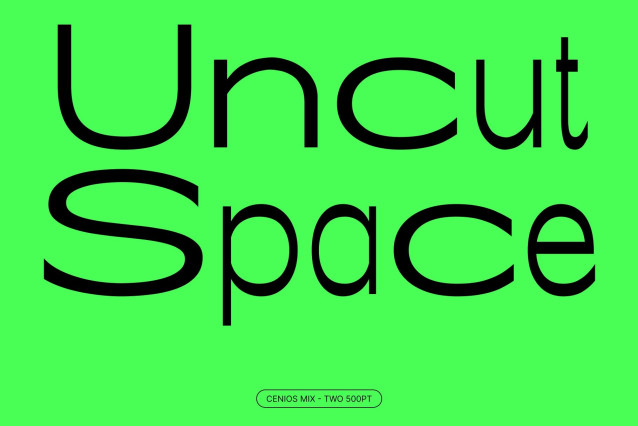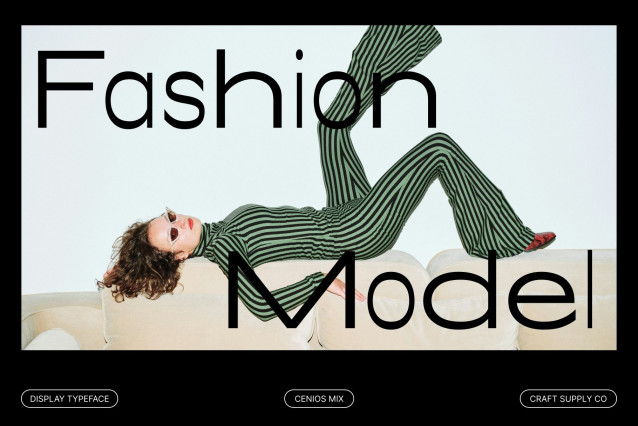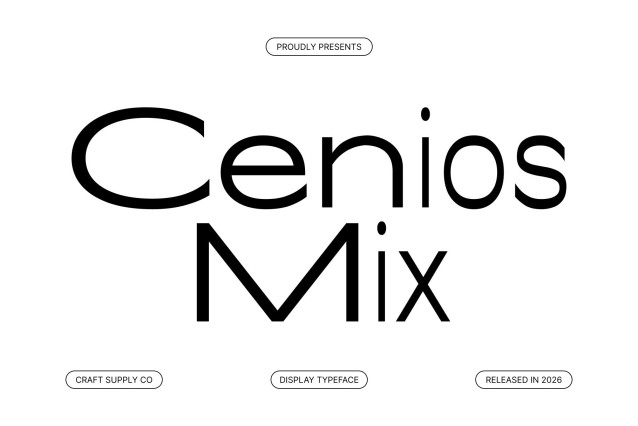
Cenios Mix Font
Cenios Mix – Expanded Sans Serif: Wide Presence with Modern Artistic Impact
Expanded Sans Serif with Mixed Style Character
This is an expanded sans serif font designed to bring openness, clarity, and bold modern appeal to every layout. With generously spaced letterforms and a confident structure, this typeface introduces a distinctive mixed-style concept that adds rhythm and personality.
A Hybrid Blend of Bold and Regular Letterforms
The unique identity of this font comes from its thoughtful fusion of bold and regular characters. This mix creates dynamic contrast and a balanced visual flow, turning typography into a strong design element rather than simple text. The combination of expanded proportions and mixed weights gives each word a sense of movement and character, making compositions feel lively and modern.